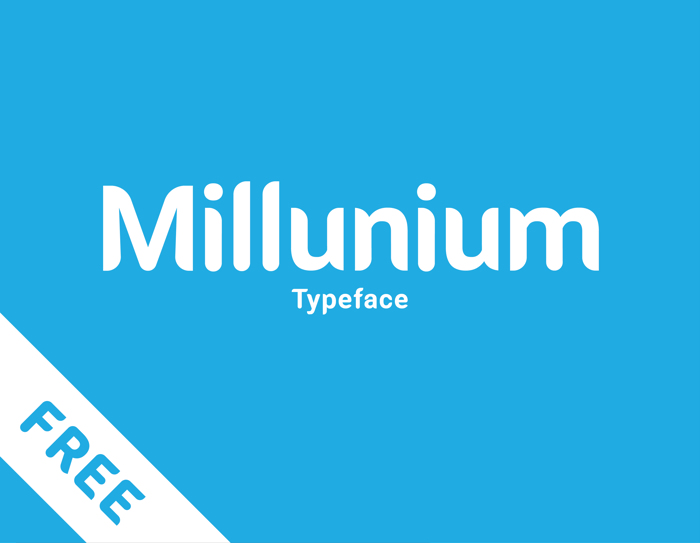
Millunium Font
Millunium typeface is a modern sans serif font that is finely made to catch up the current design trend. It comes in 4 weights and 4 italics. Millunium can always be use in a wide range of project; it looks marvelous as logotype, looks well as body type, perfect for poster design, apparel and so much more!